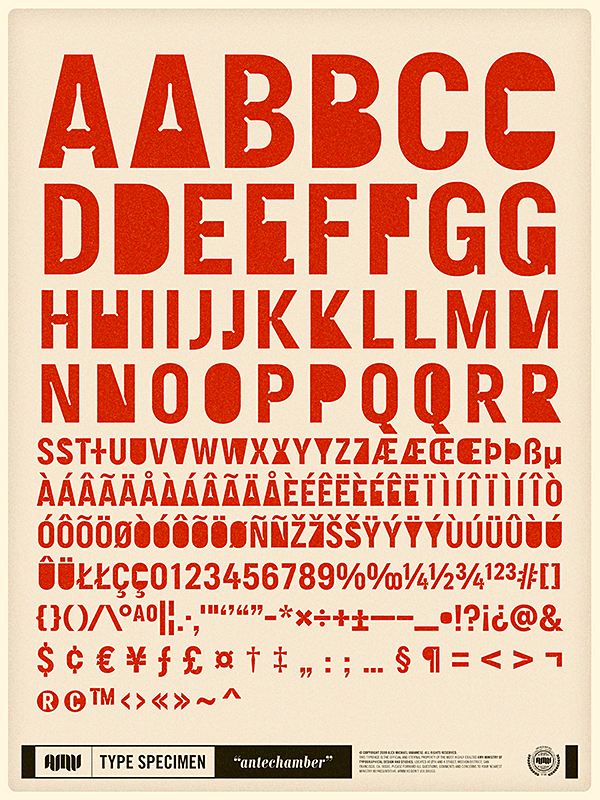
Behold! For reasons that will be revealed in the coming months, I decided to design another typeface. This time, however, my goal was to create one I could actually release for others to use. The result is Antechamber, a hyperstylized display face that draws its inspiration from architecture, drafting, industrial design and other stuff that sounds cool.